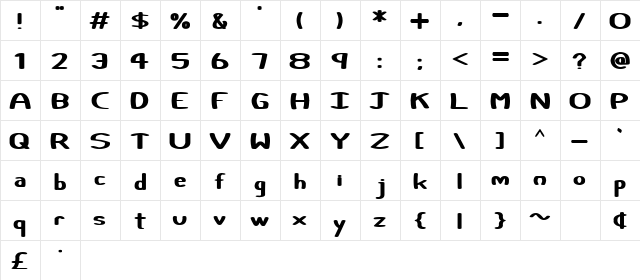
Certainly Regular
| Designer | Joseph Dawson |
Design Context for Certainly Typeface
Certainly takes a measured approach to typography — its balanced proportions and neutral character make it a reliable workhorse for both digital and print work.